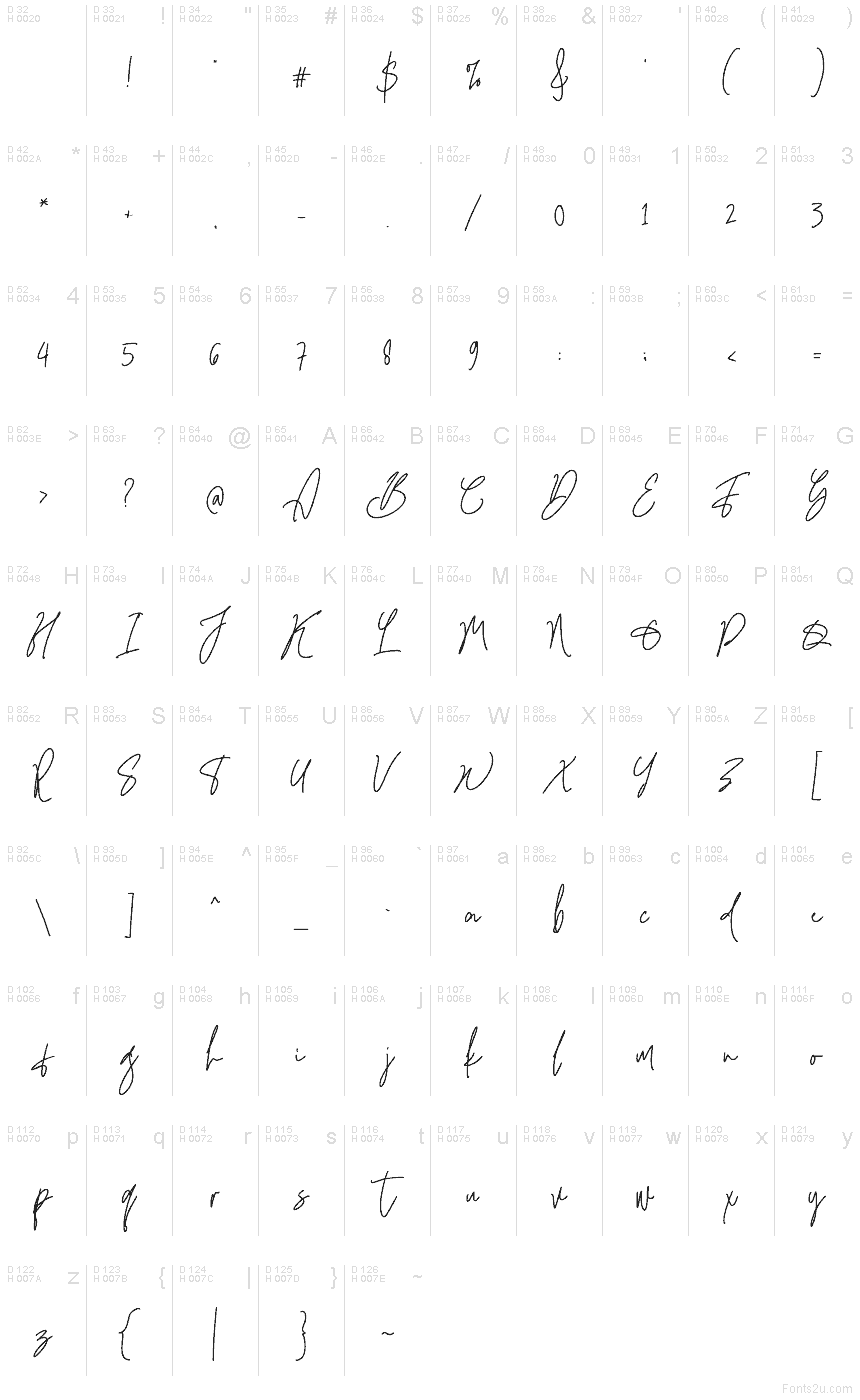
QinderiaSignature-Regular
Qinderia Signature font by Tebaltipis Studio is a handwritten font with a signature style and casually elegant personality. The design has fluid motion and continuous letters which bring in a personal touch. The elegance of the text can be attributed to its sophisticated yet charming appeal while the handwritten feel gives it authenticity.
Take advantage of this free light-weight font to enjoy various uses most notably for signature invitations, posters, business emails, book covers, branding projects, cosmetics packaging design, magazine covers, apparel designs, wedding invitation cards and lots more.